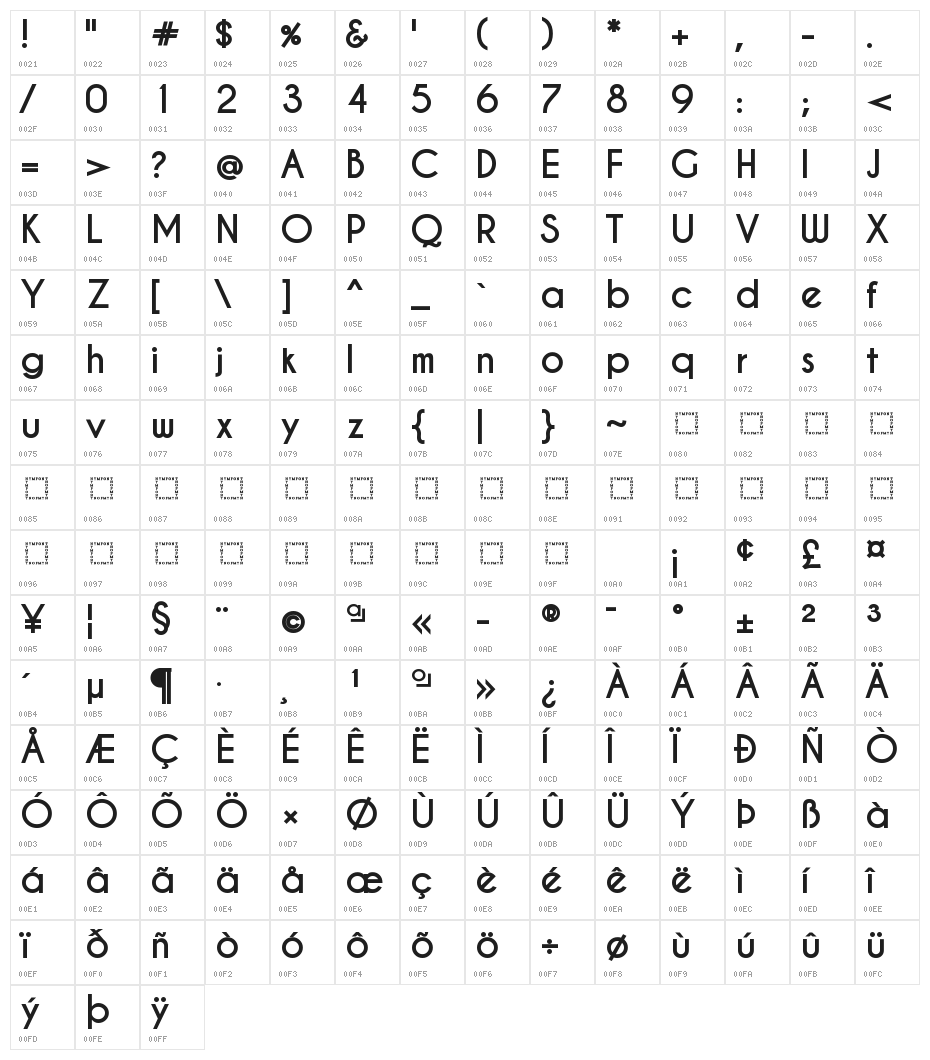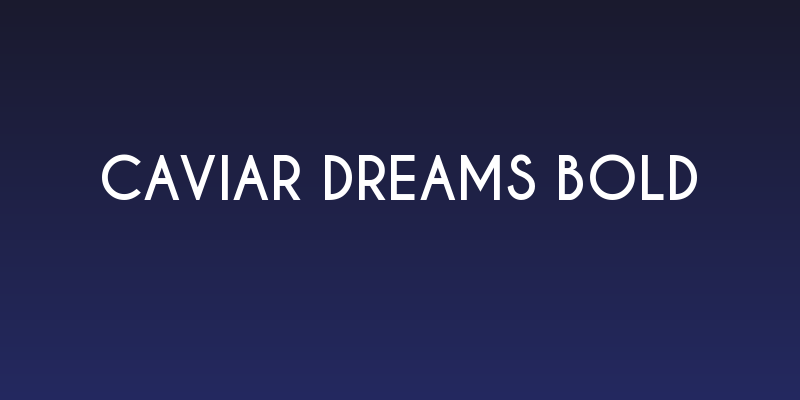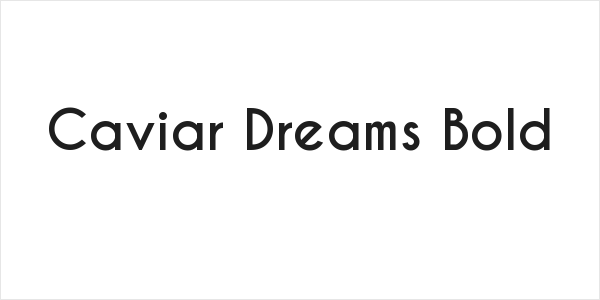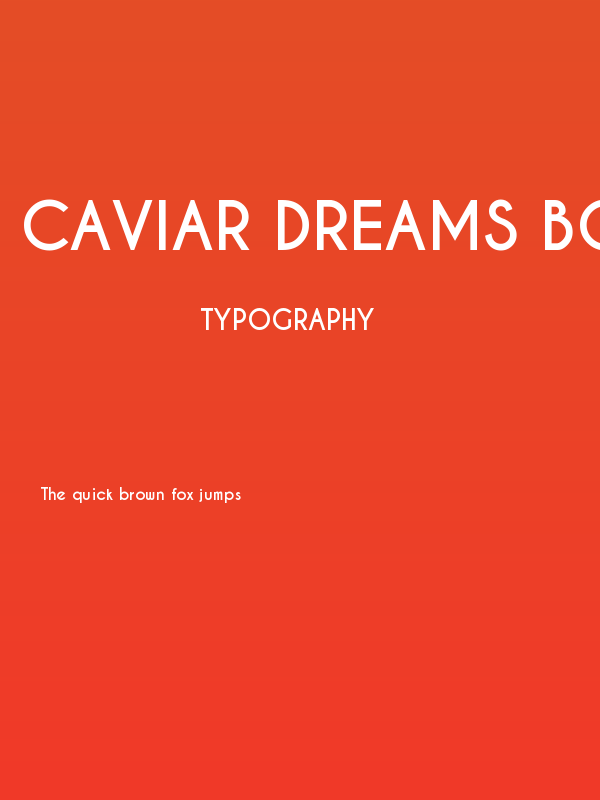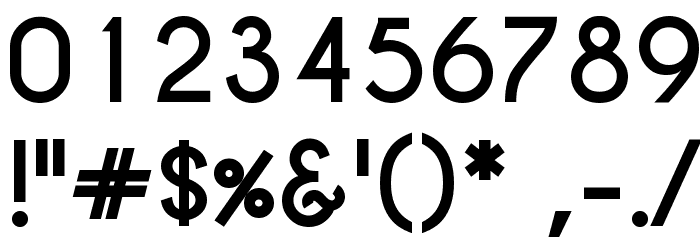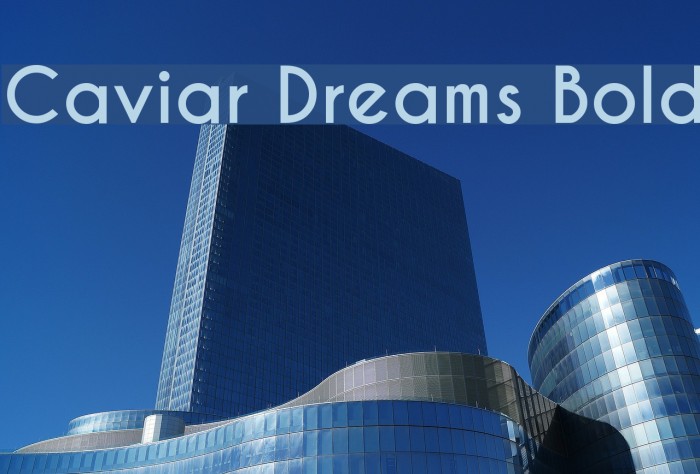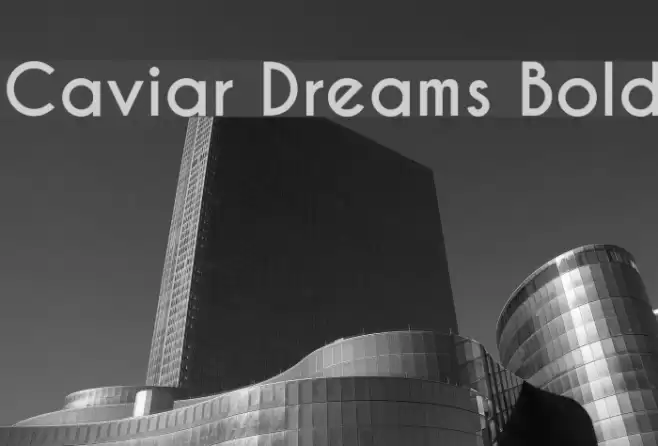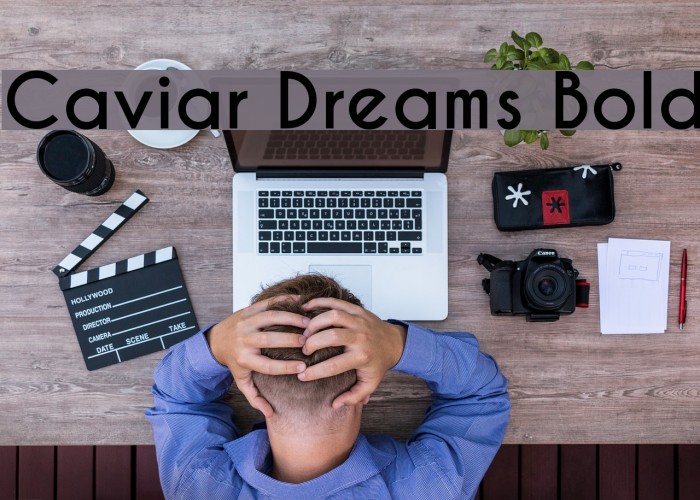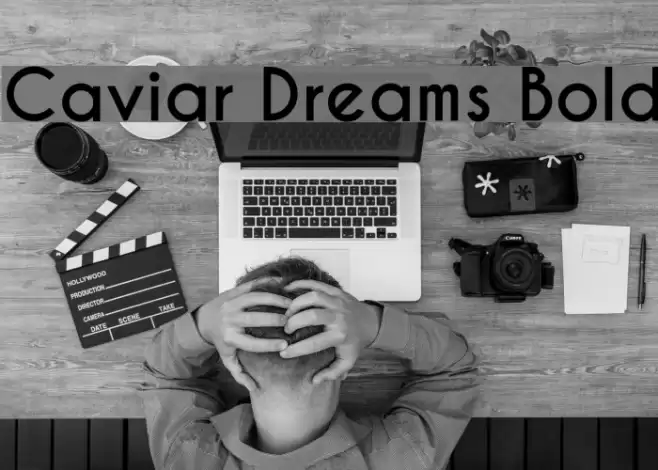
Caviar Dreams Bold Font
Caviar Dreams Bold Description
This font features a clean and modern sans-serif style with a bold weight, making it highly legible and versatile. The characters are evenly spaced with a normal width, providing a balanced appearance. The design is sleek and minimalistic, with uniform stroke thickness that offers medium contrast. Its geometric shapes and smooth curves give it a contemporary feel, suitable for a wide range of applications. The font includes a full set of uppercase and lowercase letters, numerals, and a variety of special characters, ensuring comprehensive usability.
| Use Case | Headlines, Logos, Branding |
| Proposed Projects | Ideal for branding, advertising, web design, and print media where a modern and clean look is desired. |